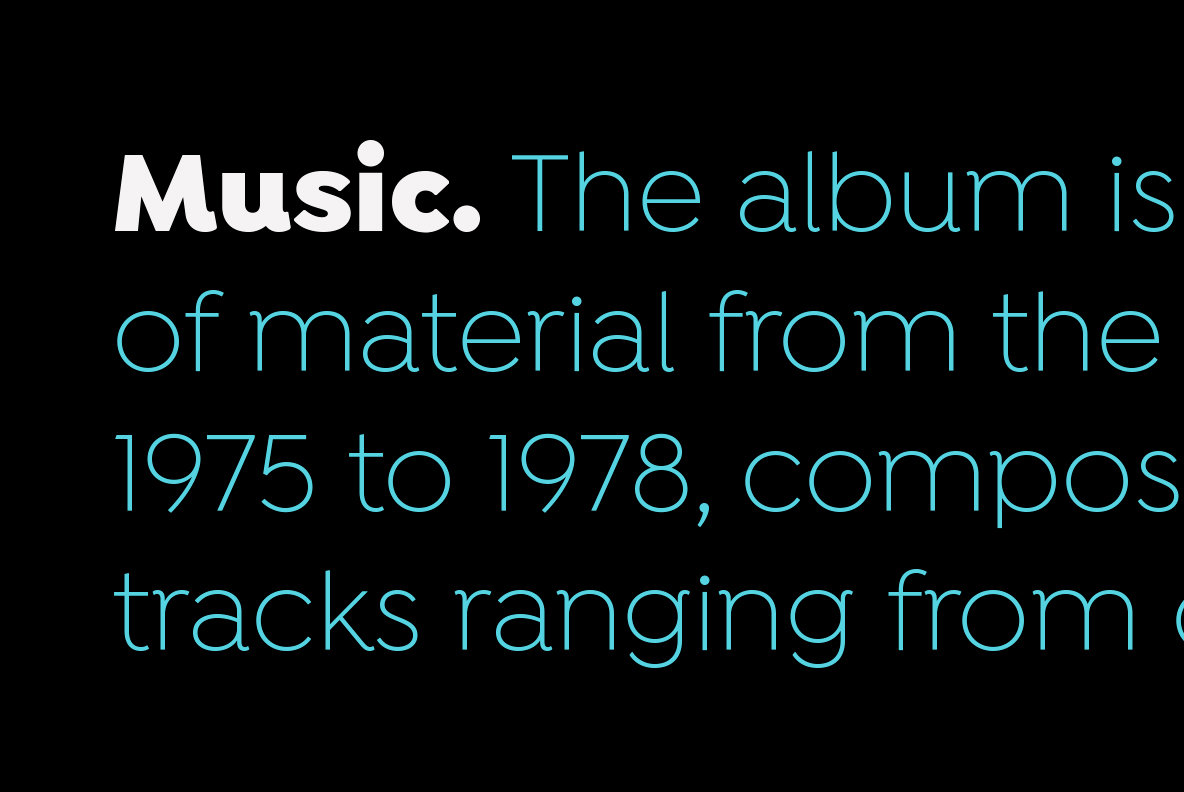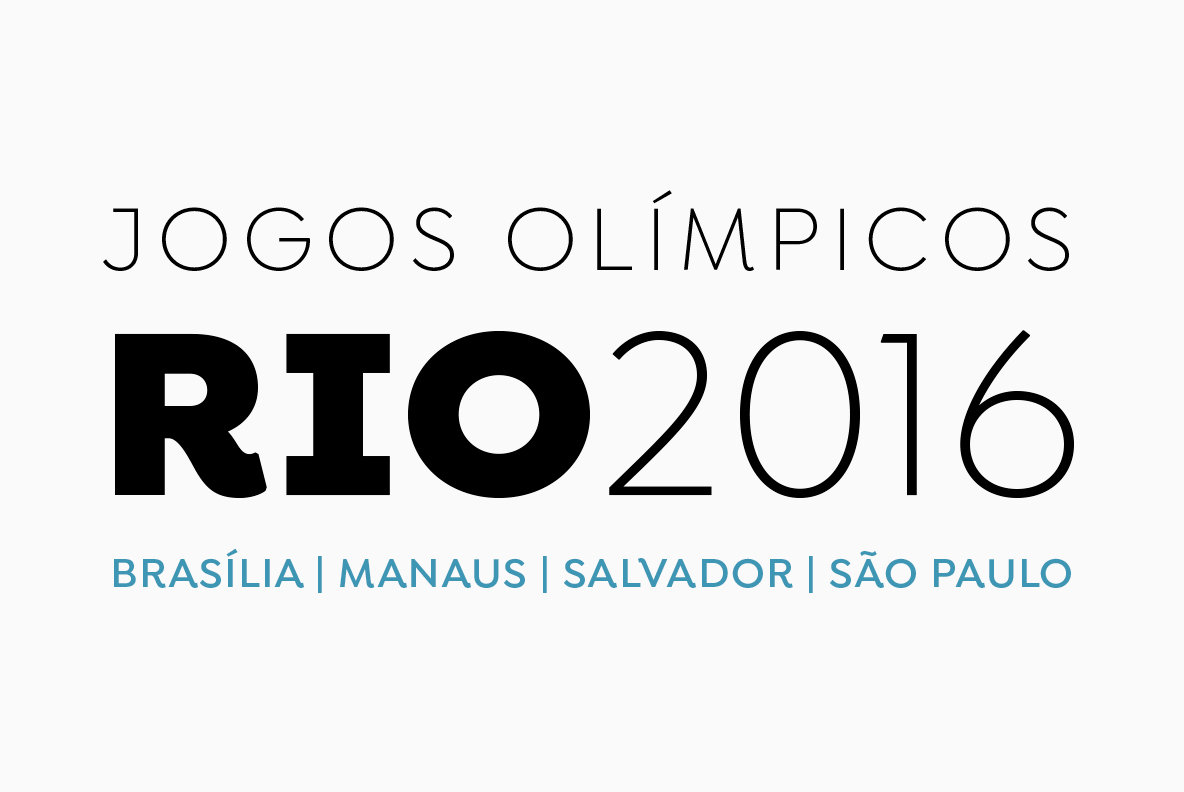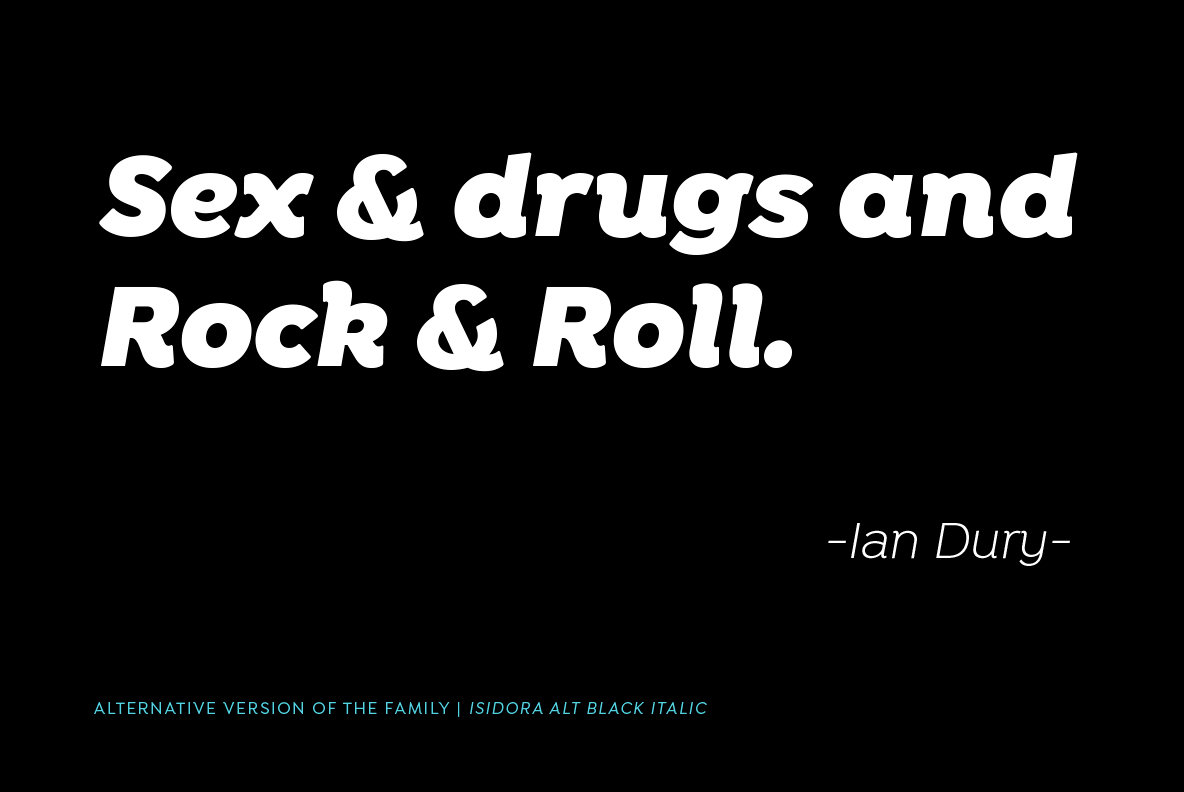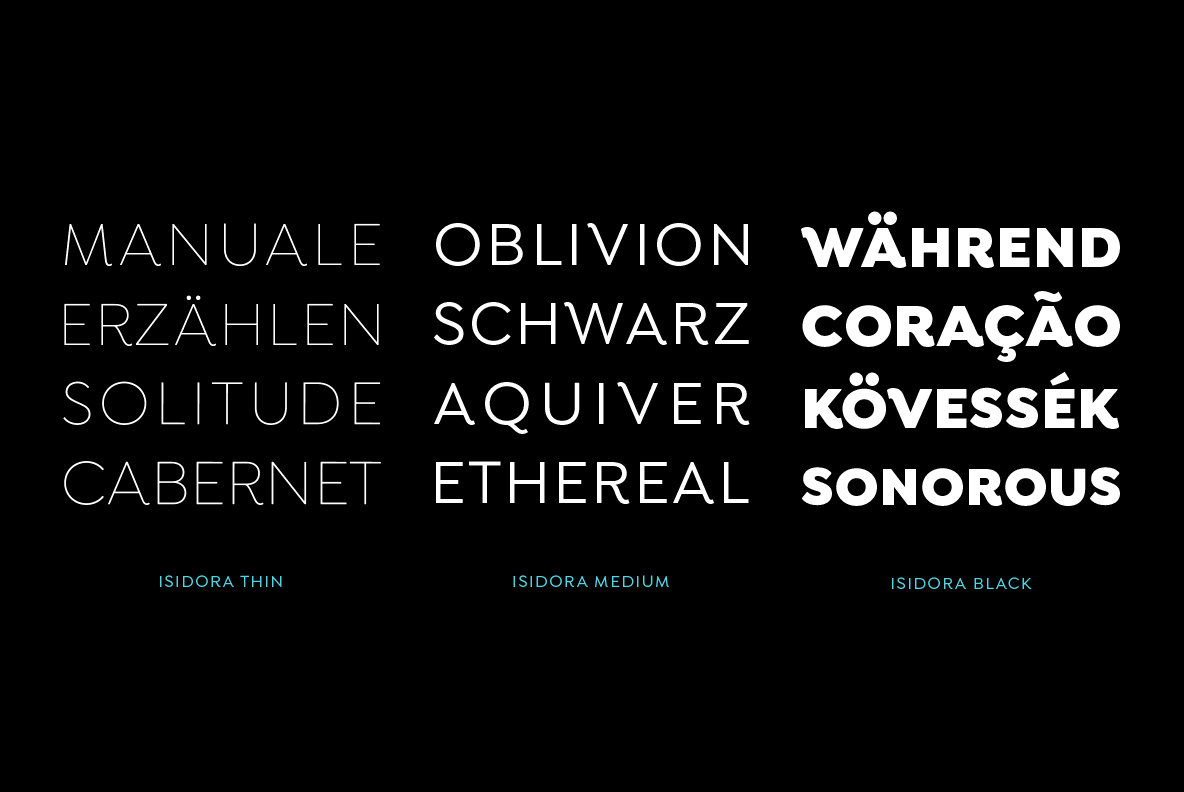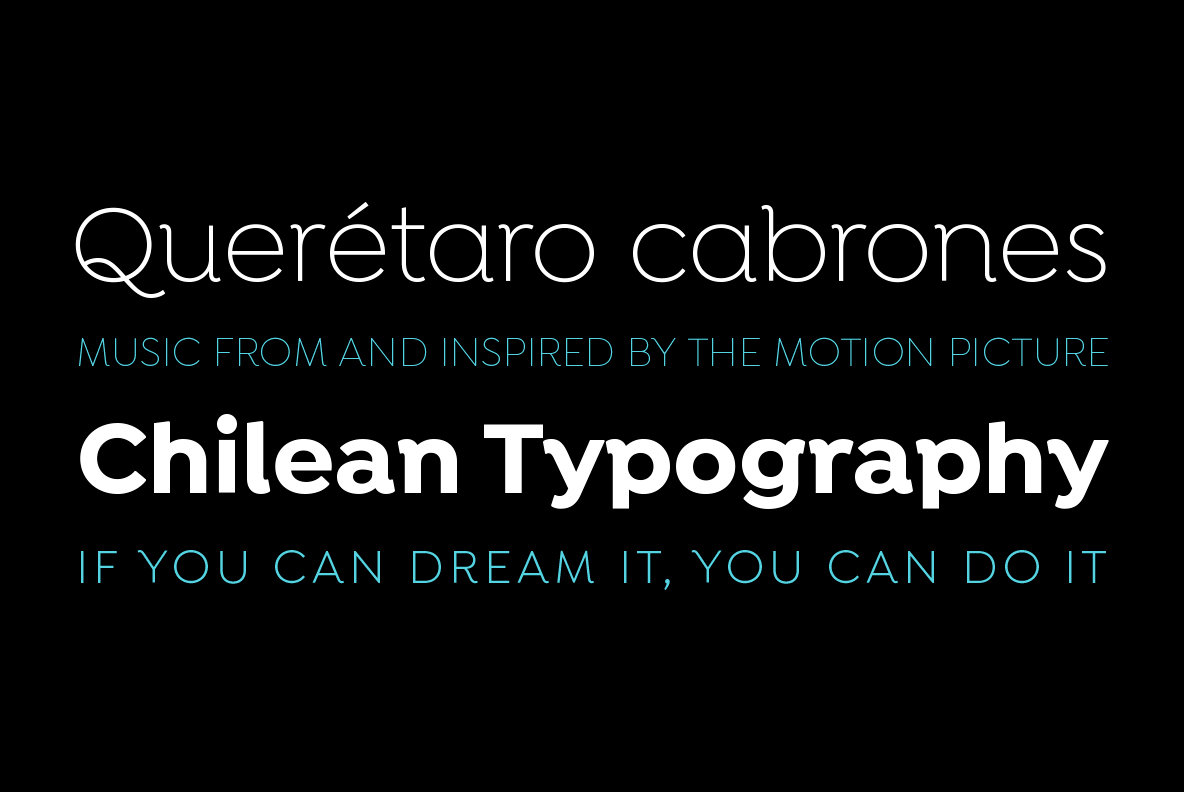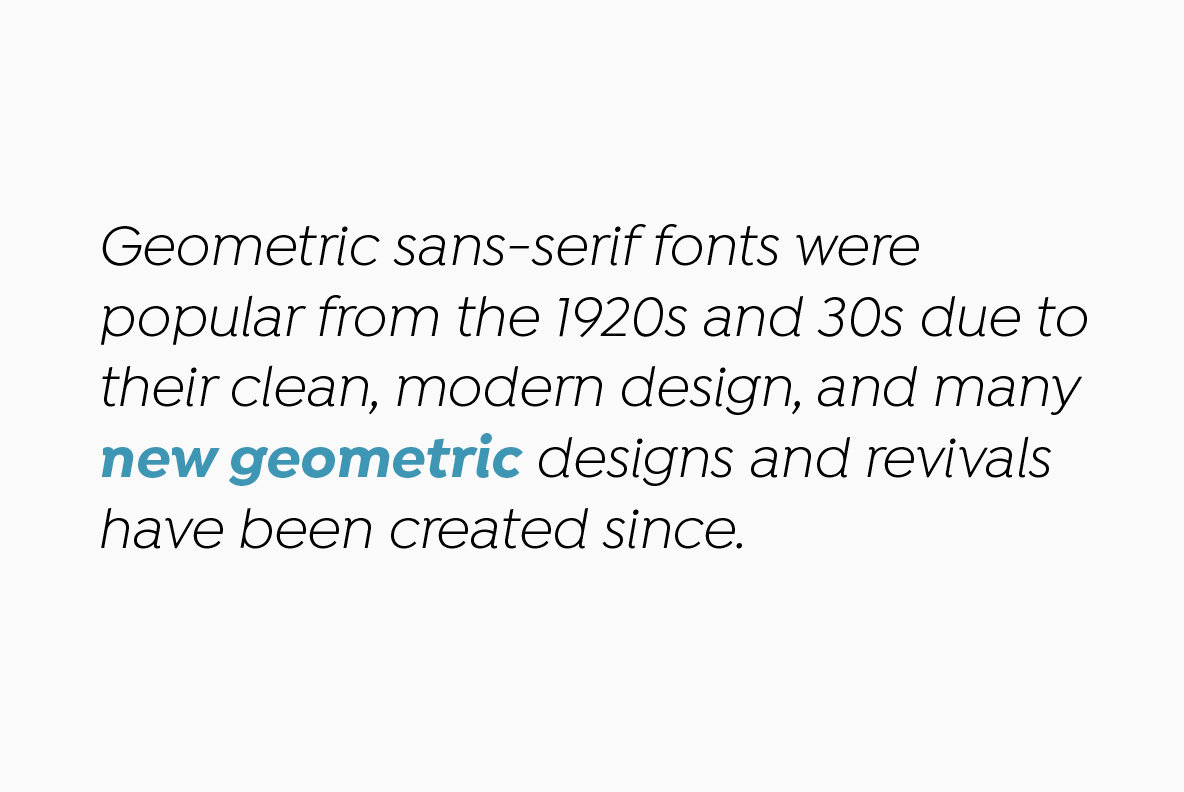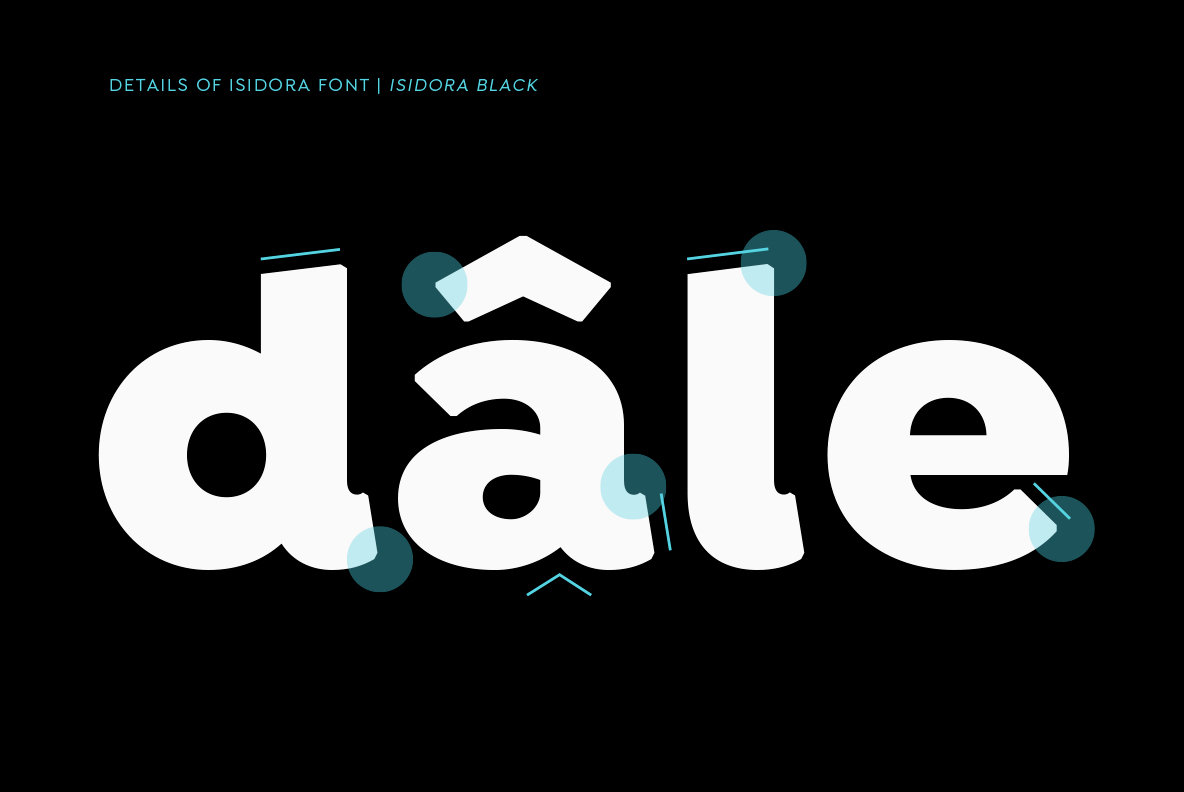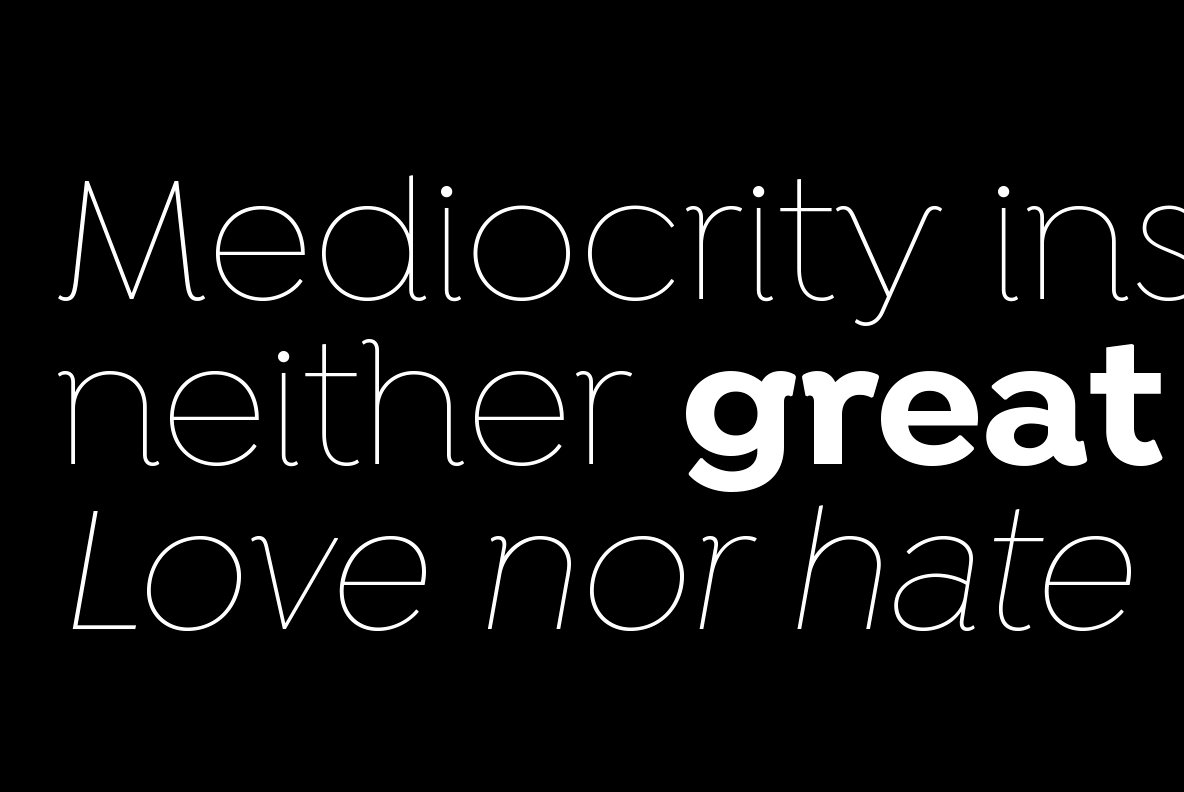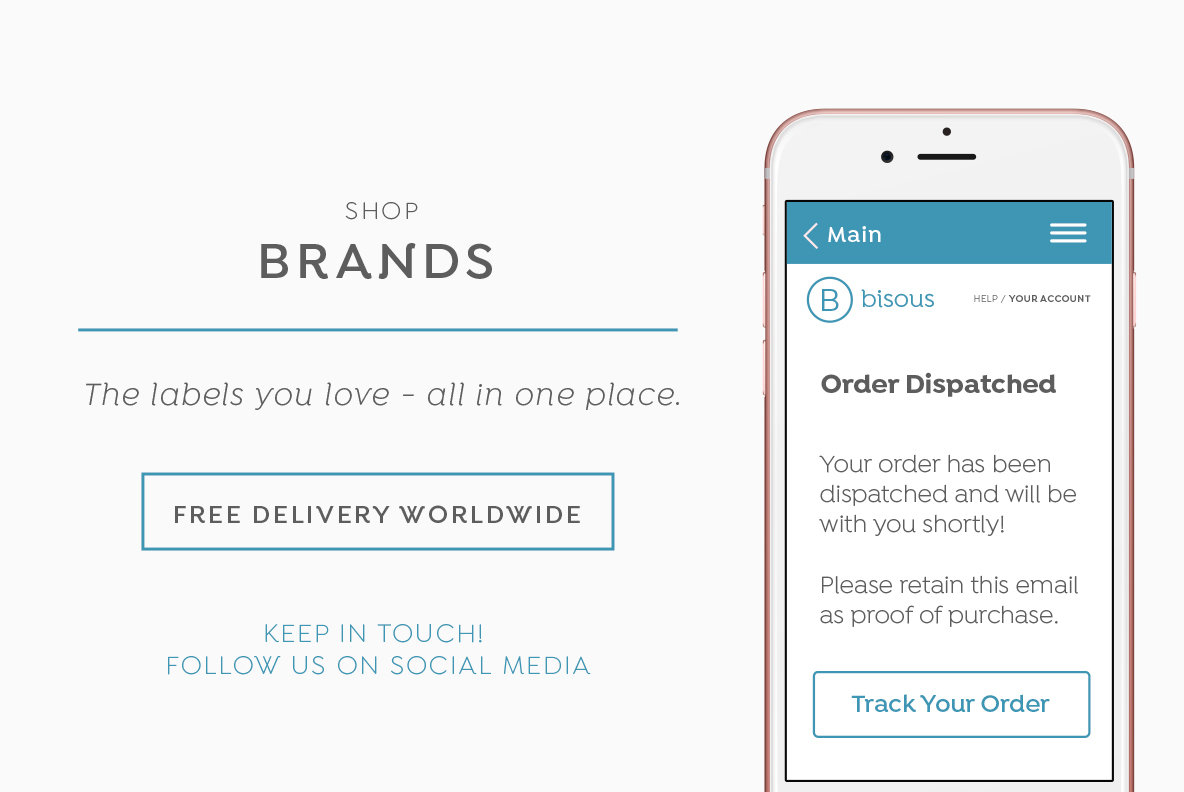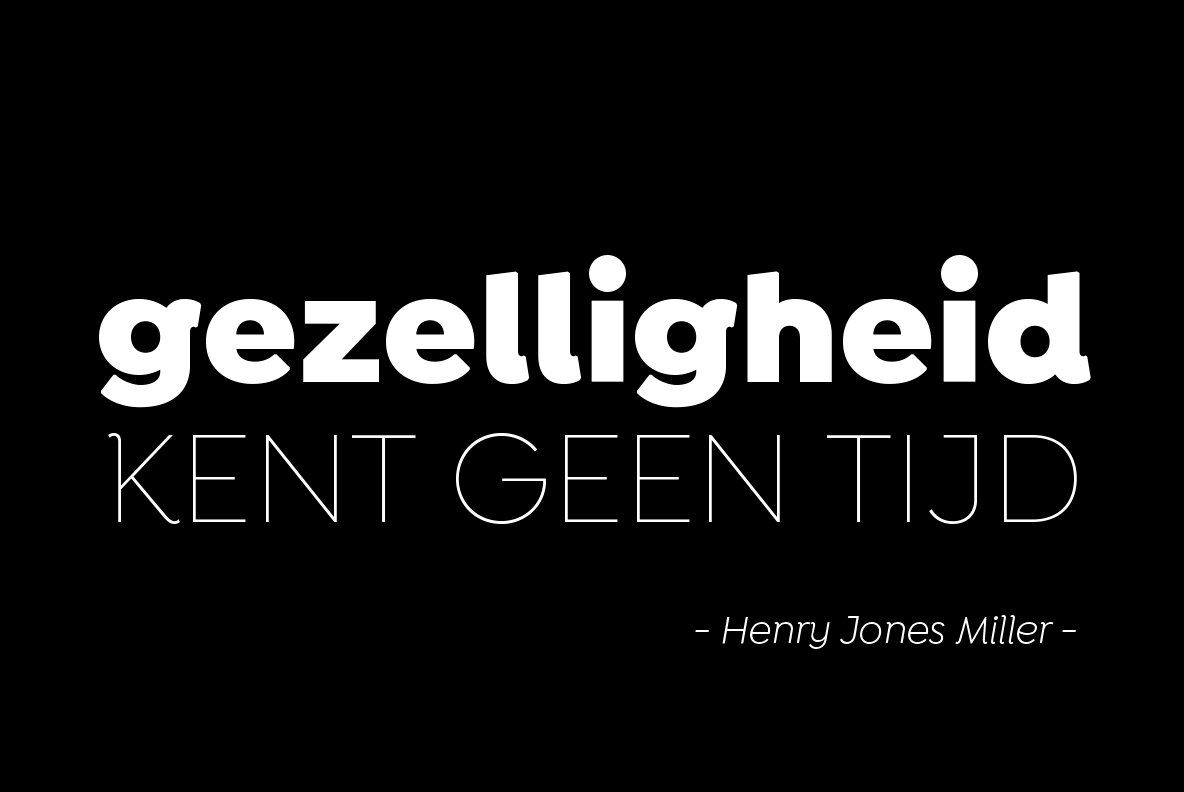
Isidora Font
Designed by Enrique Hernández V.
Isidora is a modern geometric font based on the classic typefaces of the early 21st Century yet with a contemporary and functional touch. In spite of its strong and rational structure, the font also looks friendly and expressive, thanks to its rounded terminals. In addition, its diagonal terminal cuts give it a softer and more rounded appearance.
Isidora consists of two 7-weight subfamilies: one (more classic) Regular and one Alternative (more contemporary and display). Both subfamilies come in italic version, giving a total of 28 fonts.
Isidora is the perfect font for headlines, logotypes, branding, packaging, publishing and web use. The family contains a set of 438 characters—supporting 207 different languages—and also includes an alternative character set, which allows for more versatility when composing text.